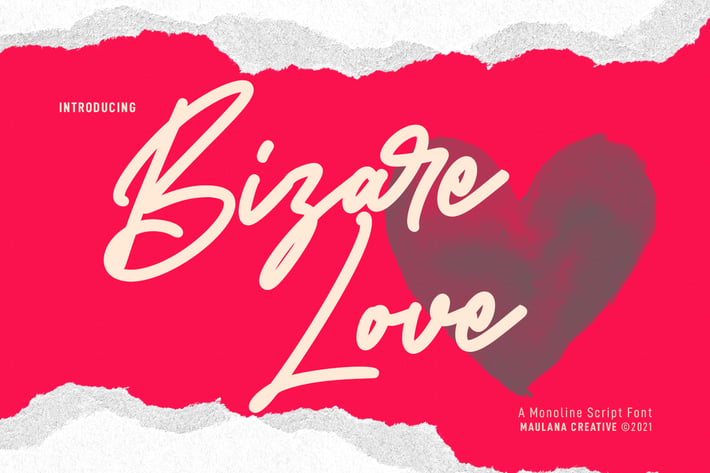
Bizare Love Monoline Script Font
Bizare Love is a casual script font. With clean mono-line stroke, fun character with a bit of ligatures. To give you an extra creative work. Bizare Love font support multilingual more than 100+ language. This font is good for logo design, Social media, Movie Titles, Books Titles, a short text even a long text letter and good for your secondary text font with sans or serif. Make a stunning work with Bizare Love font.